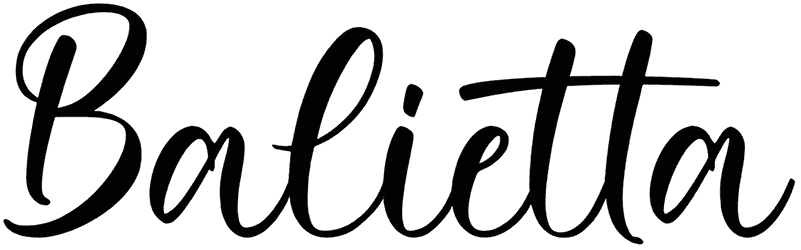
Balietta Font
Balietta can help you get back to business while working with hand lettering, branding, posters, etc. The components of this autistic calligraphy font fit together like a jigsaw, and the result is an urge to flow.
This script font stands out from others because the letters are curved and written in a cursive style. Warning, though: this lovely font contains only the digits 0, 1, and 6 in its numerals.